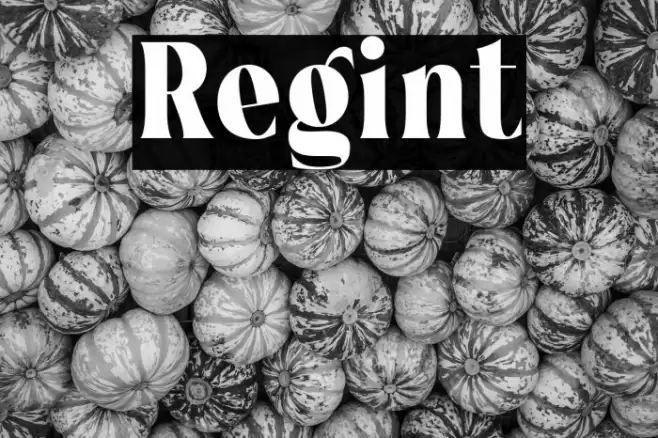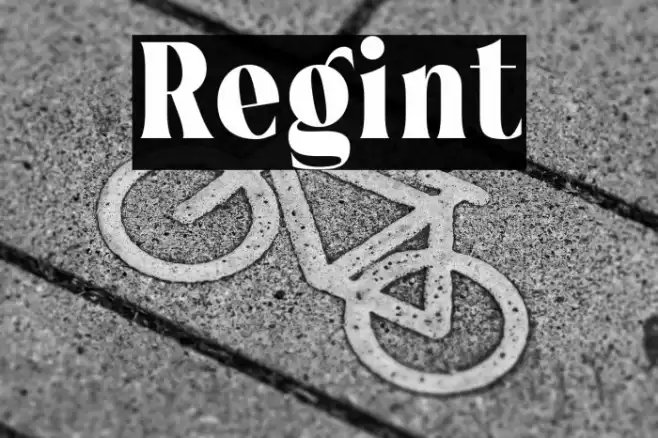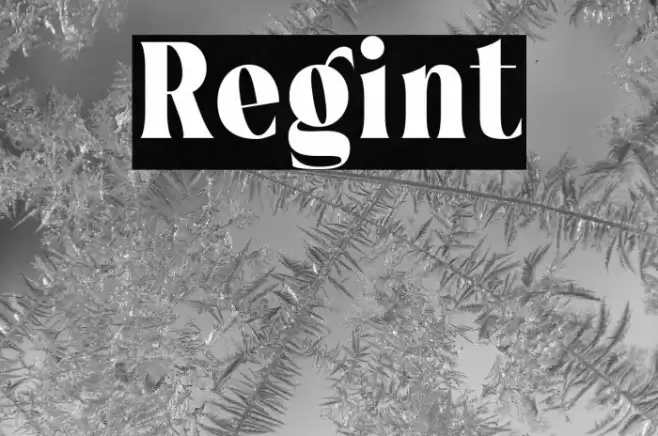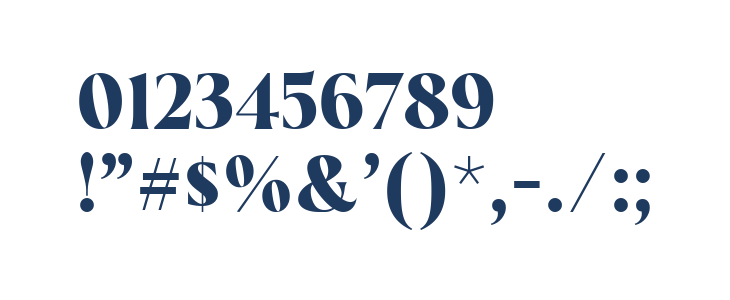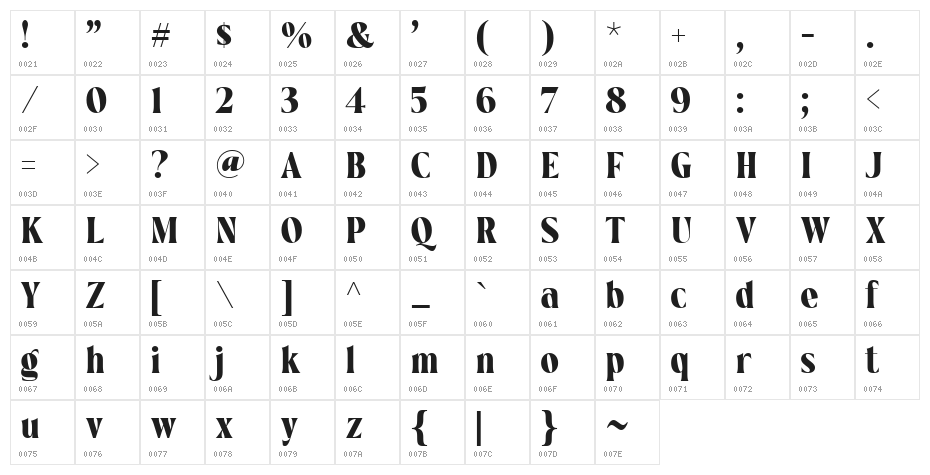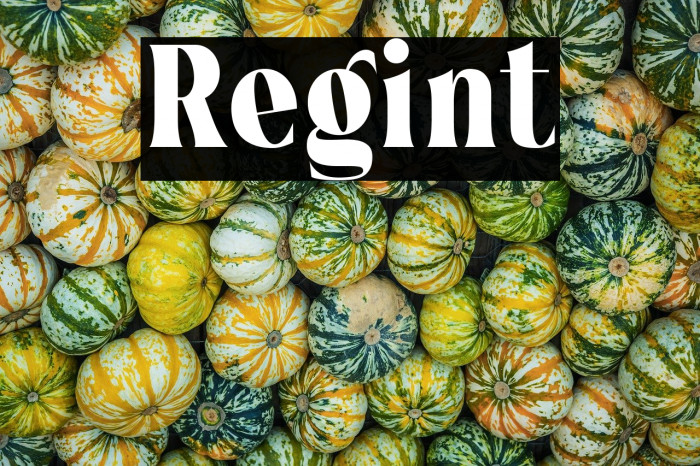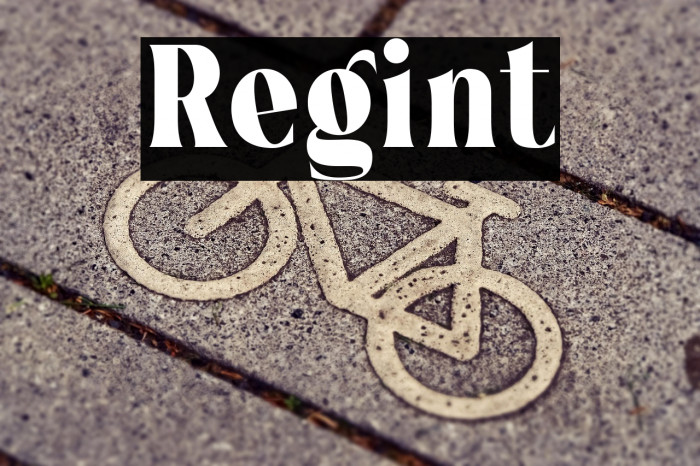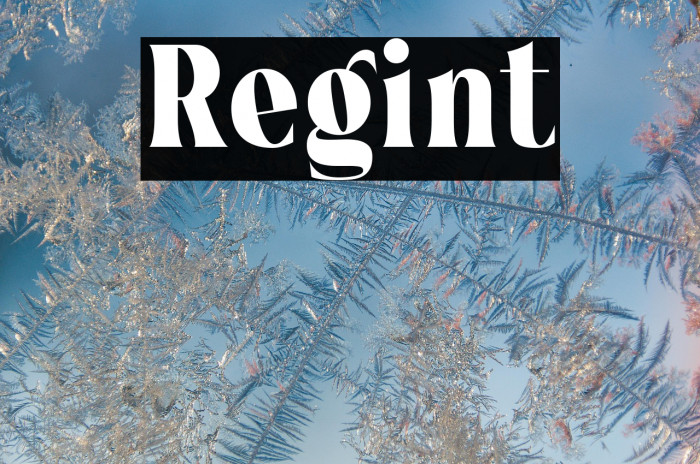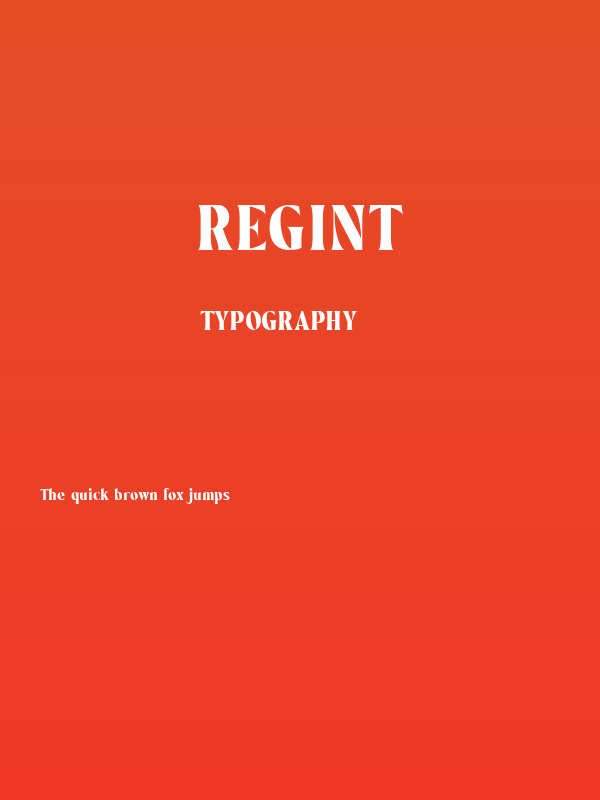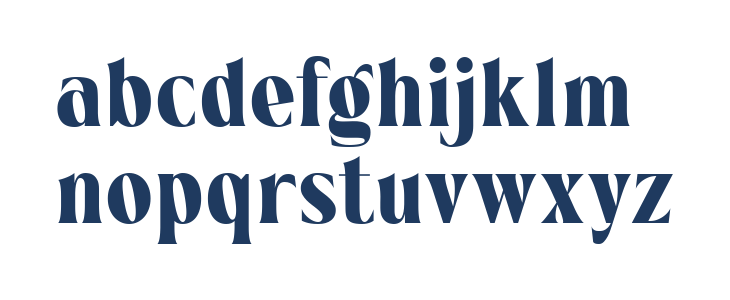
Regint Font
Regint Description
This font features a bold and dramatic style with high contrast between thick and thin strokes, giving it a striking and elegant appearance. The serifs are pronounced and sharp, adding a touch of sophistication and classic appeal. The uppercase letters are tall and commanding, while the lowercase letters maintain a consistent flow with slightly rounded edges. The numerals are equally bold, ensuring readability and impact. Special characters are designed with the same attention to detail, making them stand out. This font is perfect for making a statement in any design project.
A bold, high-contrast serif font with sharp serifs and elegant style from Regular fonts.
- Proposed Projects: Ideal for luxury branding, editorial headlines, book covers, and high-end packaging.
- Overall Style: Classic